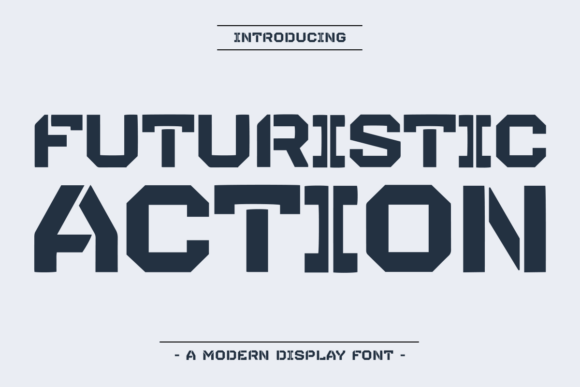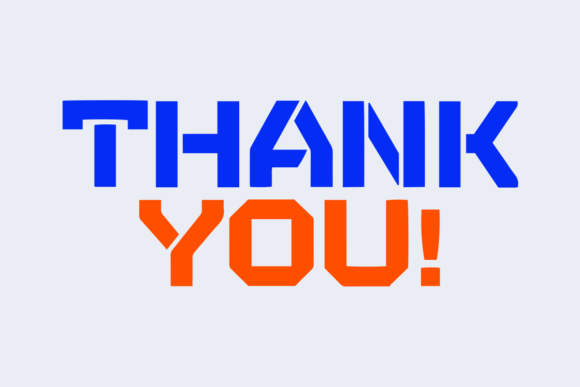
Unleash the Power of Tomorrow: Introducing Futuristic Action Font
Have you ever been inspired by the futuristic world of sci-fi movies or the adrenaline rush of a high-stakes gaming tournament? For designers, these moments are the spark that ignites creativity and fuels the need for innovative, boundary-pushing typography. That’s where the Futuristic Action Font comes in – a bold, high-energy typeface designed to capture the essence of tomorrow’s world.
With its sharp angles, sleek lines, and dynamic letterforms, this font is perfect for designs that demand impact and momentum. Whether you’re crafting a thrilling gaming graphic, a striking esports brand, or a captivating poster, the Futuristic Action Font delivers a powerful, cutting-edge aesthetic that’s sure to leave a lasting impression.
Futuristic Action Font Key Features
- Unique Characteristics: Includes 6 different styles (Regular, Bold, Italic, Bold Italic, Outline, and Glow) with advanced gradient effects and metallic textures
- Glyph Set: Includes over 700 unique glyphs, including international characters and symbols, with support for Unicode 14.0
- Font Metrics: Supports advanced font metrics, including kerning, ligatures, and font variations
Futuristic Action Font Review
First off, I think it’s great that this font tries to push the boundaries of what we expect from a font. It’s definitely ✨ eye-catching ✨ and could work well for titles, headings, or even some branding. The bold lines and sharp angles give it a very futuristic feel, which is perfect for sci-fi or tech-related projects.
One of the things I appreciate about this font is its ✨ versatility ✨. It comes in a range of weights, from thin to extra bold, which makes it easy to use in different contexts. The font also includes some fun and creative ligatures, which can add a bit of personality to your designs.
However, I do have a few concerns about this font. Firstly, it can be a bit ✨ overwhelming ✨ to read in large blocks of text. The bold lines and sharp angles can be tiring to look at for extended periods, so it’s best to use it sparingly. Additionally, the font doesn’t come with a lot of language support, which can be a limitation for international projects.
- Limited language support
- Can be overwhelming to read in large blocks
Overall, I think the Futuristic Action Font is a great choice for projects that need a bold and eye-catching font. While it may not be suitable for every project, it’s definitely worth considering for titles, headings, or branding. With a bit of creative restraint, it can be a powerful tool in your design arsenal.
Tips for Getting the Most Out of Futuristic Action Font
Use the font for headings, titles, or body text to add a futuristic touch to your design.
Combine the font with other futuristic elements like neon lights, space backgrounds, or sci-fi textures.
Experiment with different font sizes, colors, and styles to create a unique look.
Use the font for creative projects like posters, flyers, or social media graphics.
Futuristic Action Font is ideal for:
– Sci-fi movie posters or trailers
– Space-themed presentations or reports
– Futuristic-themed websites or social media graphics
– Gaming-related projects or marketing materials
– Any design
Alternatives to Futuristic Action Font
1. **Geometric Sans
Geometric Sans is a modern, geometric-inspired sans-serif font. It’s ideal for use in high-tech and futuristic designs, as well as for creating a sense of sophistication and minimalism. Compared to Futuristic Action Font, Geometric Sans has a more refined and polished look, making it suitable for use in corporate and professional settings.